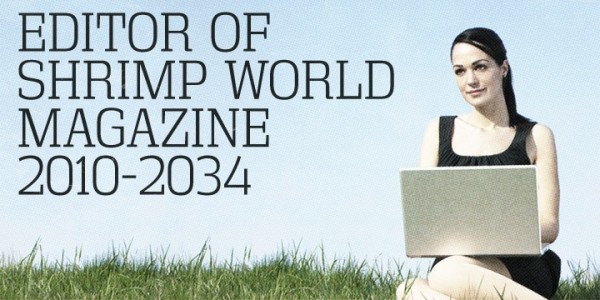
Vectipede
Vectipede is a chic technical slab with a crisp, square voice. It includes numeric ordinals and old-world numerals. The clean lines make the typeface highly suitable for magazines, pamphlets, etc. Get Vectipede font on MyFonts Vectipede font details Publisher: Typodermic Released: Aug 3, 2010 Price: $30.00